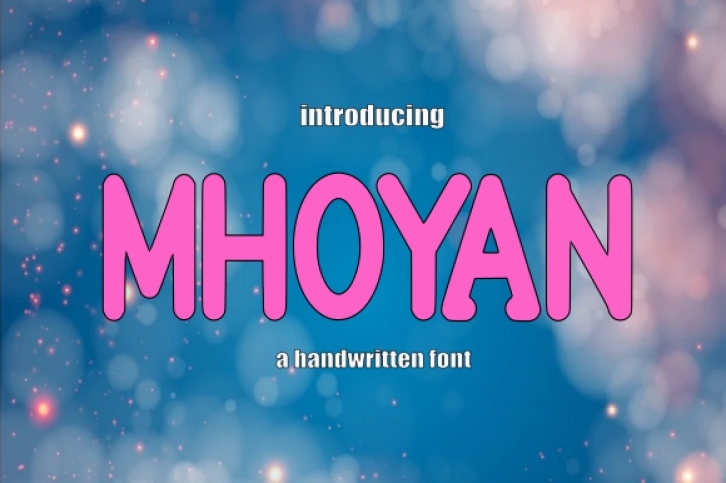
Mhoyan is a handwritten font, bold and joyful, perfect for a wide variety of design projects! No matter the topic, this font will make your creative ideas stand out!